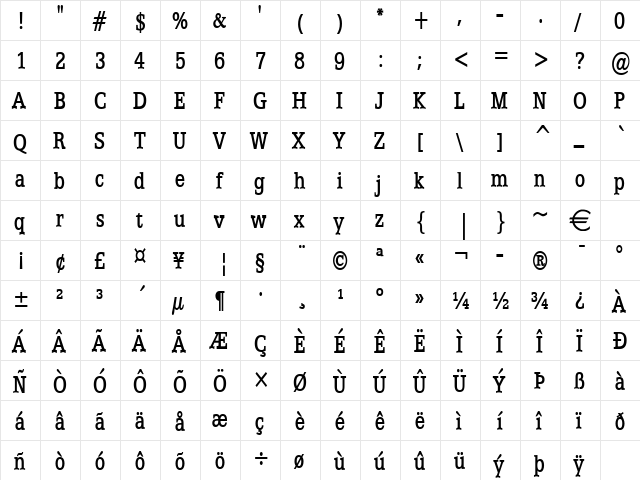
EggoCondensed Bold Font Preview
EggoCondensed Bold
EggoCondensed Bold Font Details
Design Context for EggoCondensed Typeface
EggoCondensed offers clean, dependable letterforms without strong stylistic allegiance, making it a practical choice for designers who need flexibility. The heavy weight commands attention and anchors typographic hierarchies. Its narrow stance lets it pack a punch even in space-constrained designs.